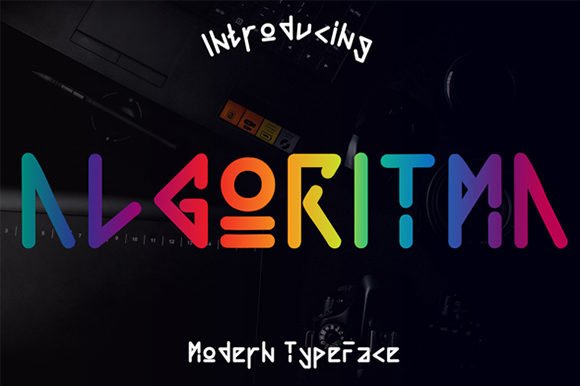
Have you ever been working on a design project and suddenly, a burst of inspiration hits you? The colors, the shapes, the typography – everything comes together in perfect harmony. But then, you’re stuck on finding the perfect font to bring your vision to life. That’s where Algoritma Font comes in – a futuristic display font designed to make your creations stand out from the crowd.
This sleek and modern font is perfect for displaying titles, posters, logos, decorations, flyers, and more. Its unique style is sure to grab attention and leave a lasting impression on your audience. As a designer, you know how valuable it is to have the right tools at your fingertips. Algoritma Font is a game-changer, offering endless possibilities for creative expression.
Key Features of Algoritma Font
- Unique Characteristics: Algoritma Font features a unique blend of geometric and organic elements, resulting in a distinctive and eye-catching design that sets it apart from other fonts.
Review of Algoritma Font
As a designer, I’ve had the chance to experiment with the Algoritma Font, and I must say, it’s a fascinating addition to any digital project. ✨ One of the standout features of this font is its unique blend of geometric and humanist elements. It creates a striking contrast that can add visual interest to any text-based design. The font’s versatility also makes it suitable for a wide range of applications, from digital interfaces to print materials.
- ✨ Customizability: The font offers a high degree of customizability, allowing designers to fine-tune its look and feel to suit their specific needs.
- ✨ Versatility: As mentioned earlier, the font’s versatility makes it suitable for a wide range of applications.
However, there are some limitations to consider: ⚠️ The font’s unique design can sometimes make it difficult to read, especially at smaller font sizes. Additionally, the font’s geometric elements can feel a bit cold and unapproachable in certain contexts.
- ⚠️ Readability: The font’s unique design can sometimes compromise readability.
- ⚠️ Emotional resonance: The font’s geometric elements can feel cold and unapproachable in certain contexts.
Overall, I’d say that the Algoritma Font is a solid choice for designers looking to add some visual interest to their projects. While it may not be suitable for all applications, it’s definitely worth considering for projects that require a unique and attention-grabbing font.